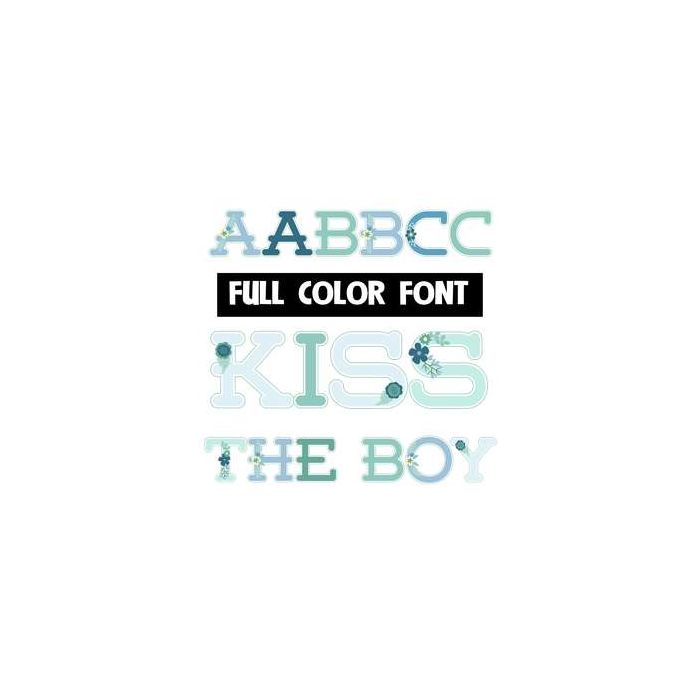
This pretty floral font has a blue base. Mix up both cases for best results. This font works best for titles, displays, posters and more. Please note color fonts will show as black in non compatible programs. This font type is compatible with Silhouette Studio.